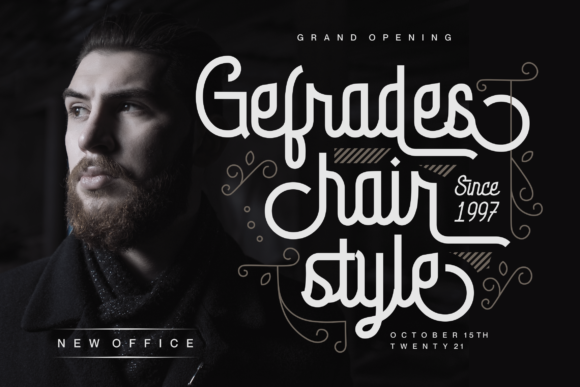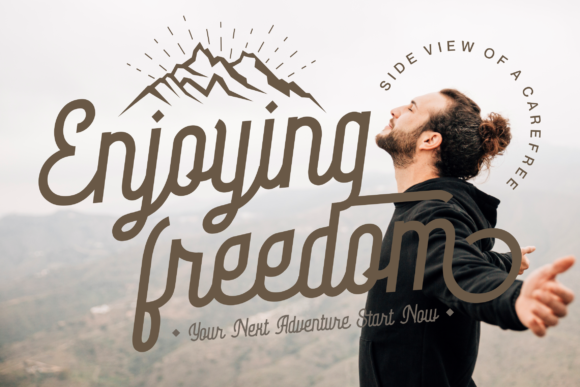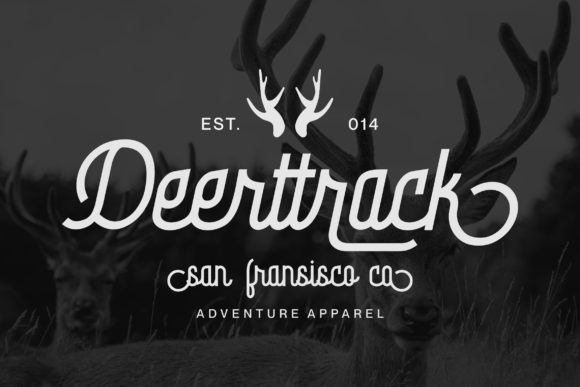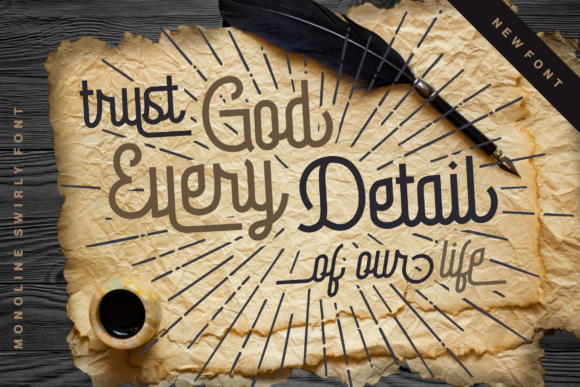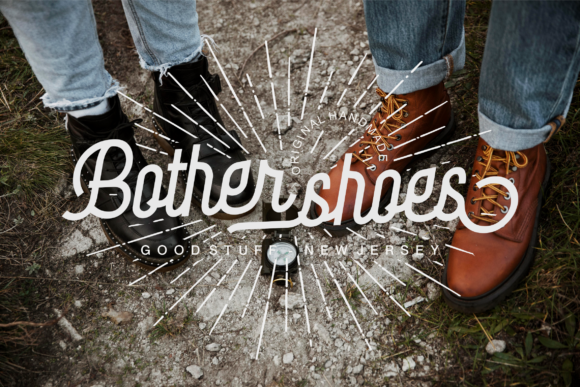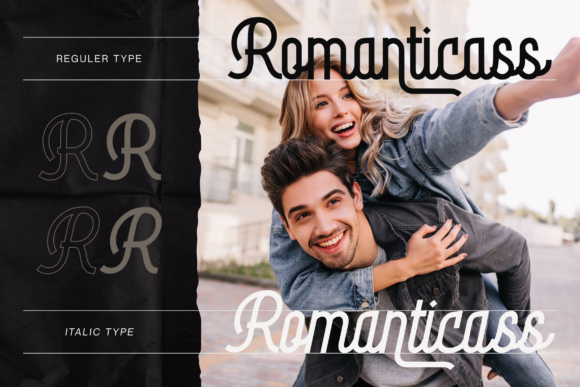
Unleashing the Charm of Vintage Design: Byemalkan Font
Have you ever been stuck in front of your computer screen, staring at a blank canvas, waiting for the perfect font to bring your design to life? That’s exactly what happened to me last week, and it was then that I stumbled upon the enchanting Byemalkan Font. As a designer, I know how crucial it is to find the right font that sets the tone for your project.
Byemalkan Font is a vintage styled script font that exudes sophistication and elegance. Its smooth curves are perfect for fashion branding or editorial designs, making it a valuable addition to any designer’s toolkit. What I love about Byemalkan Font is its ability to add a touch of nostalgia and whimsy to any project, elevating it from ordinary to extraordinary.
- Font Family: Byemalkan is a unique, custom-designed font family that offers a wide range of styles and weights.
- Size: The font family includes 6 different weights, ranging from Light to Black, each with its unique characteristics and nuances.
- Resolution: Optimized for high-resolution displays, Byemalkan font is perfect for use in digital applications, such as web design, mobile apps, and digital signage.
- Unique Characteristics: Byemalkan font features a distinctive, hand-drawn feel with subtle irregularities and imperfections, giving it a unique and human touch.
- Language Support: Byemalkan font supports a wide range of languages, including Latin, Cyrillic, and Greek scripts, making it a versatile choice for global applications.
Byemalkan Font Review
Overall, I’m impressed with the Byemalkan font. It’s a unique and eye-catching choice for designers looking to add some personality to their projects. ✨ The font’s irregular shapes and bold lines give it a hand-drawn feel that’s perfect for creative and artistic projects.
One of the standout features of Byemalkan is its excellent legibility. ✨ Despite its unconventional design, the font is easy to read and understand, making it suitable for a wide range of applications. It’s also highly customizable, allowing designers to adjust the font’s size, color, and spacing to fit their specific needs.
- ⚠️ Limited font sizes: Byemalkan may not be suitable for very large or very small font sizes, as the irregular shapes can become distorted or difficult to read.
- ⚠️ Not suitable for body text: Due to its bold and unconventional design, Byemalkan is best suited for headings, titles, and other emphasis areas, rather than body text.
Overall, I would recommend Byemalkan font to designers who are looking for a unique and eye-catching choice for their projects. While it may have some limitations, the font’s excellent legibility and customizability make it a valuable addition to any designer’s toolkit.
The Byemalkan font is ideal for creating unique and stylish headings, titles, and logos.
Use it to add a touch of elegance and sophistication to your designs.
2. Branding and logos.
3. Magazine and newspaper headlines.